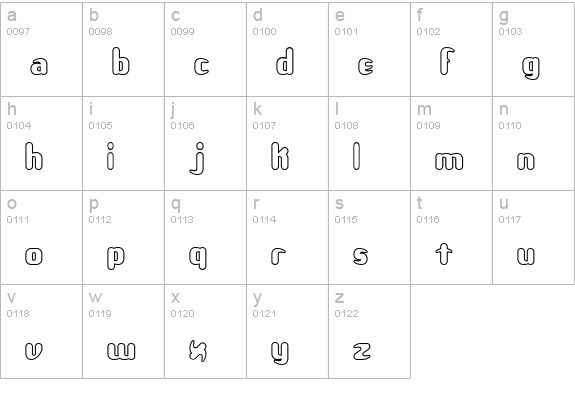
Unexplored Galaxies O -BRK- font is a truly mesmerizing typeface that transports you into the depths of uncharted space. With its intricate design and unique character shapes, this font captures the essence of mystery and wonder. Each letter is reminiscent of distant stars and unknown galaxies, lending a sense of adventure and exploration to any project. The beauty of Unexplored Galaxies O -BRK- font lies not only in its captivating aesthetics but also in its versatility. Whether you are designing a poster, creating a logo, or crafting a digital artwork, this font will effortlessly elevate your work to new heights. Its bold yet elegant presence commands attention and adds a touch of sophistication to any design. One of the best features of Unexplored Galaxies O -BRK- font is that it is freely available to download at FontsMarket.com. This means that you can enjoy the stunning beauty and creative potential of this font without any cost. It is a true gem for designers and typographers, offering endless possibilities for creative expression. So, if you are ready to embark on a journey to unexplored galaxies of design, look no further than Unexplored Galaxies O -BRK- font. Let its celestial charm and artistic allure guide you to new horizons. Download it for free at FontsMarket.com and discover the boundless creativity that awaits.